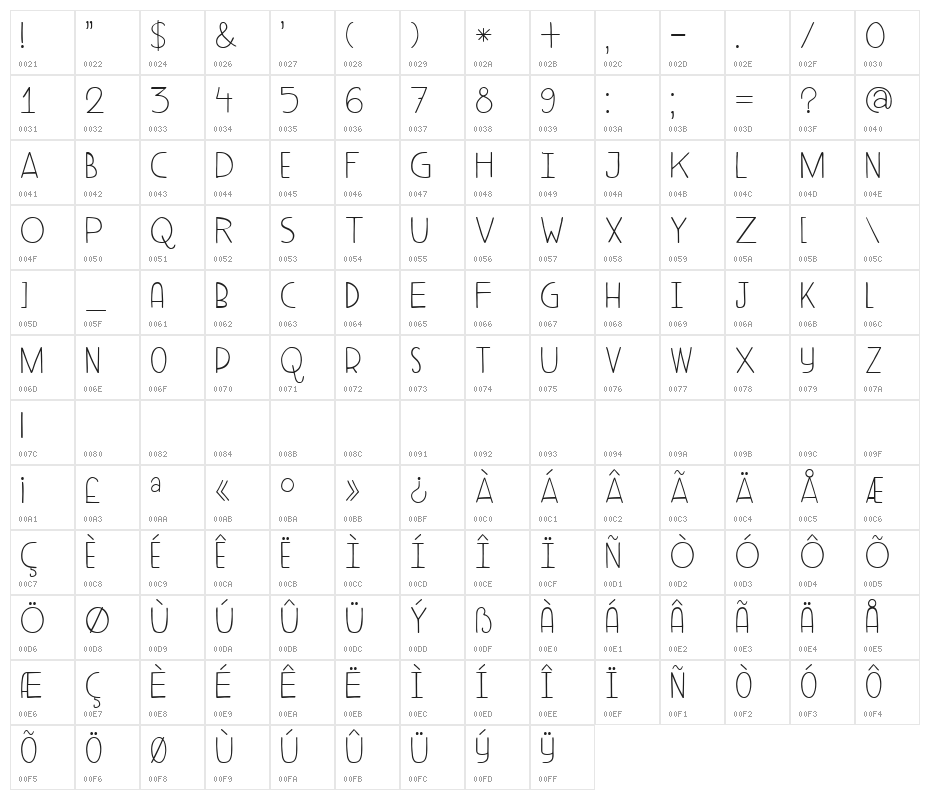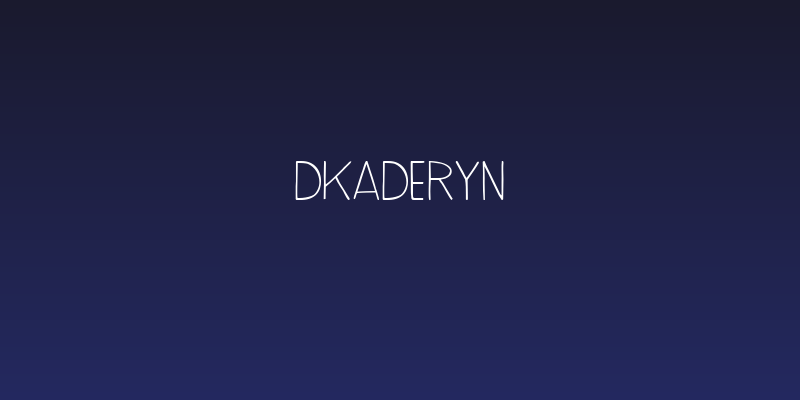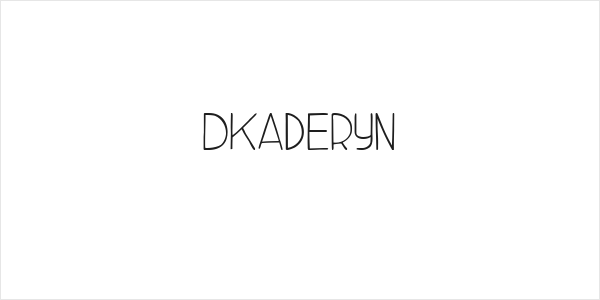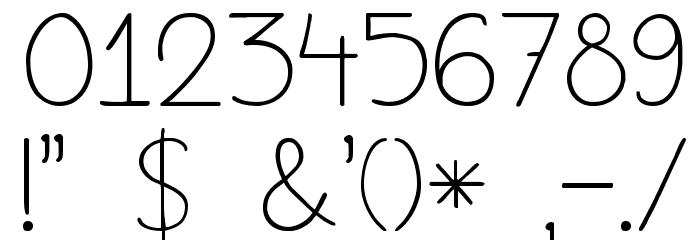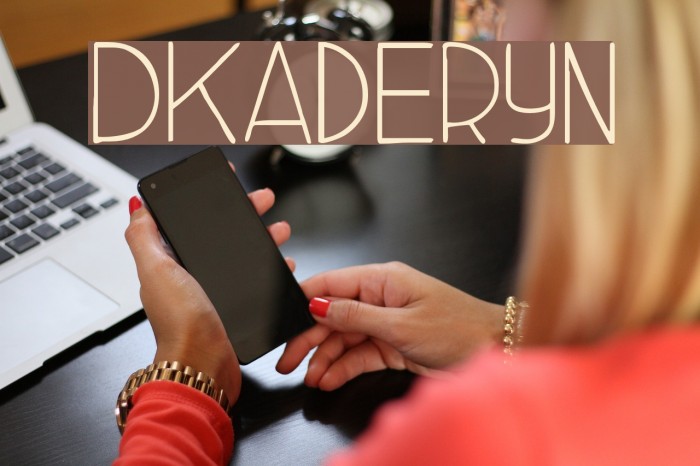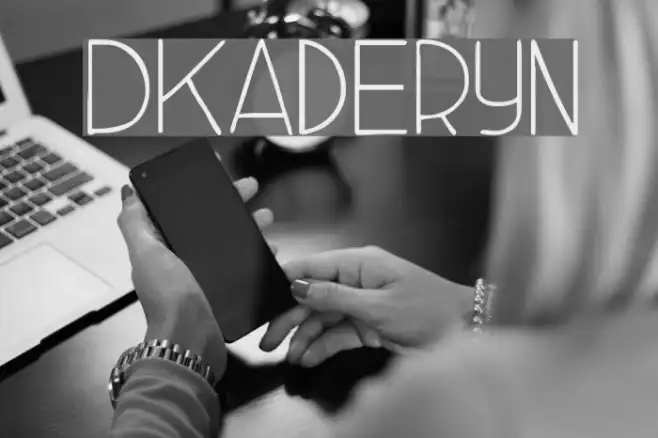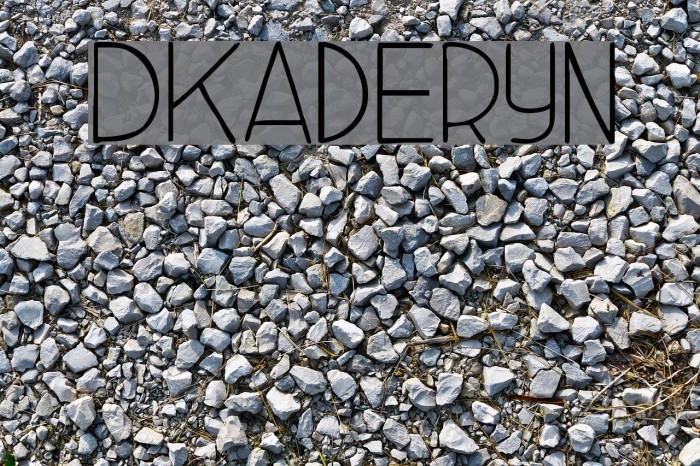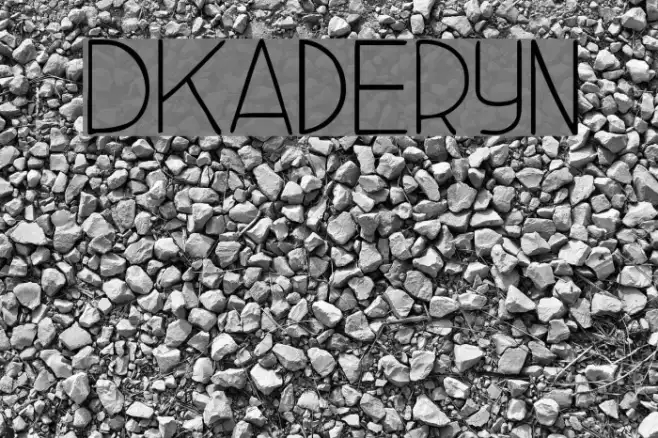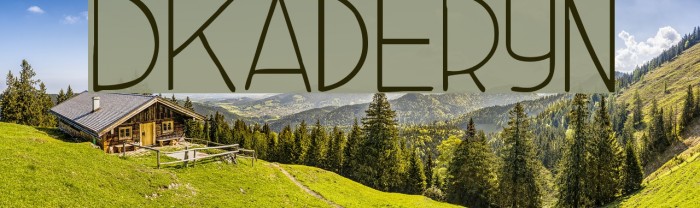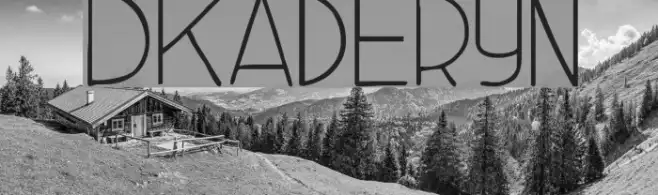
DKAderyn Font
This font features a clean and modern design with a geometric structure. The characters are evenly spaced with a consistent stroke width, giving it a balanced and harmonious appearance. The uppercase letters are slightly taller than the lowercase, providing a distinct hierarchy. The numerals are clear and easy to read, matching the style of the alphabet. Special characters are included, maintaining the same aesthetic as the letters and numbers. This font is versatile, suitable for various design projects that require a contemporary and minimalist look.
| Proposed Projects | Ideal for branding, advertising, web design, and editorial projects that require a modern and minimalist aesthetic. |